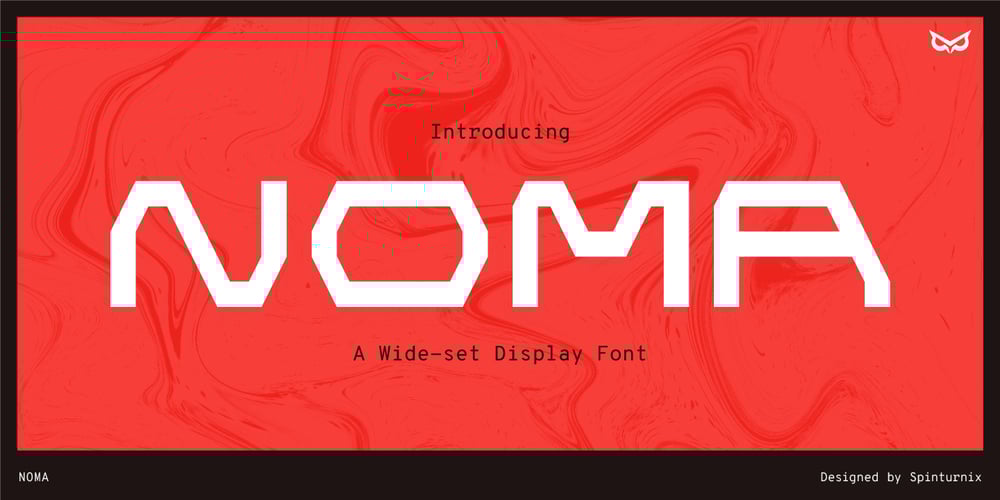
Noma Font Family was designed by Trevor Garner and published by Spinturnix. Noma contains 2 styles and family package options. Noma is a new wide-set display font with a minimal geometric style. I designed Noma because I wanted a tech-inspired font that has plenty of character while remaining legible. Noma is a great choice for high-impact headings and logotypes. I hope you enjoy, thanks for checking it out!